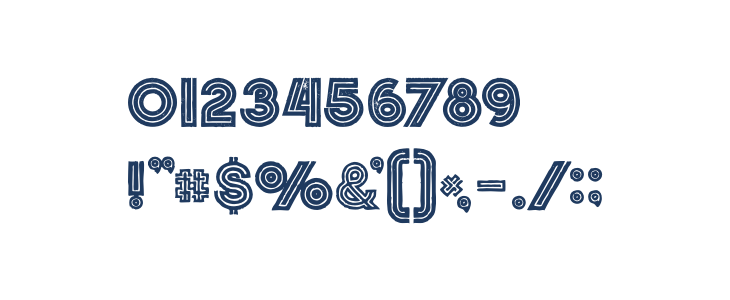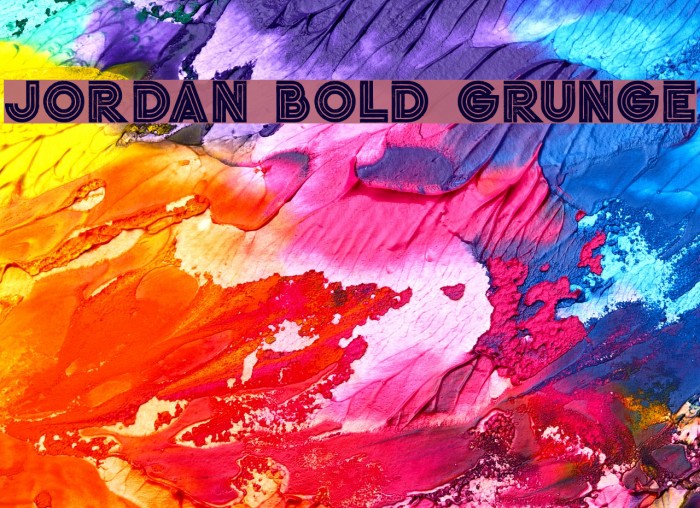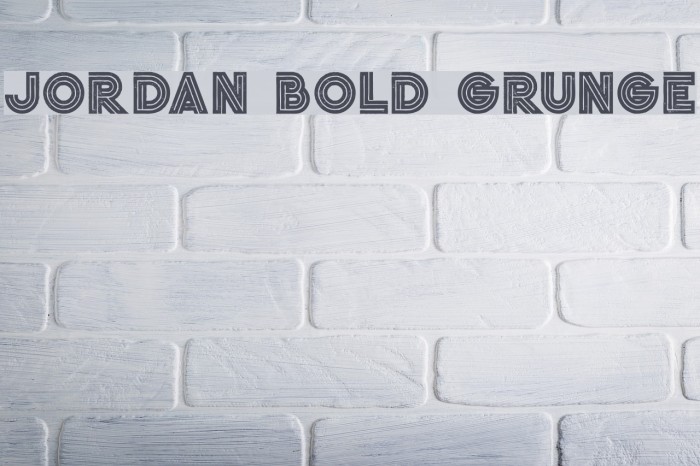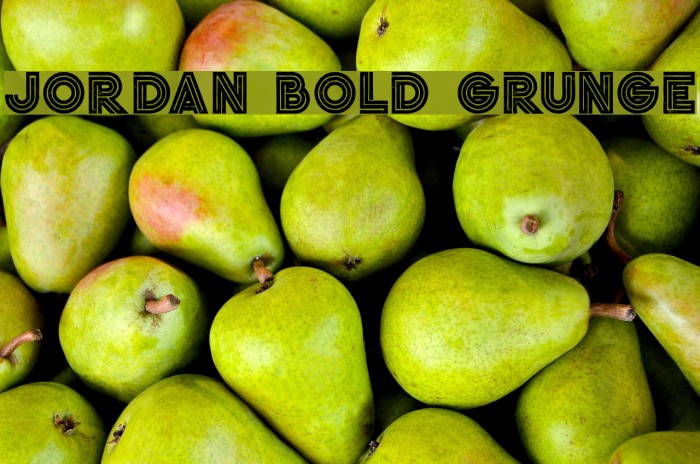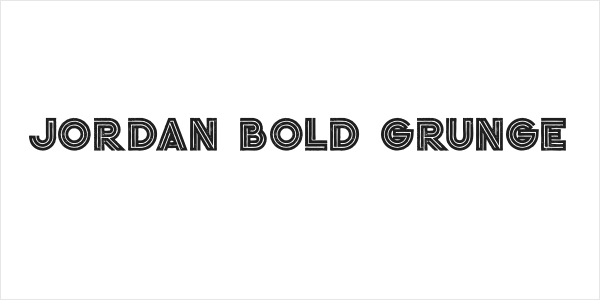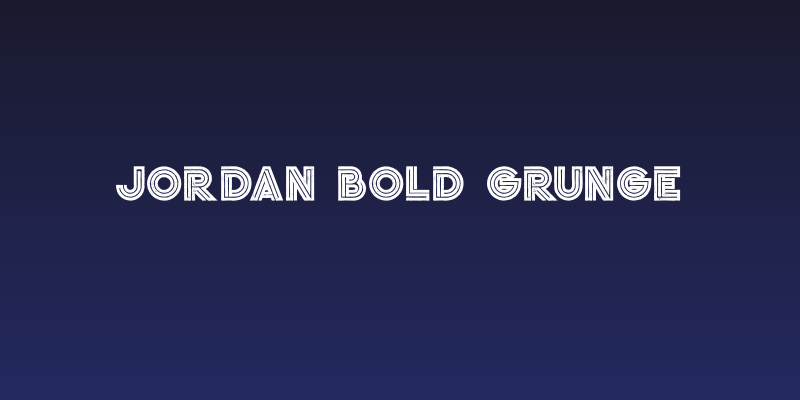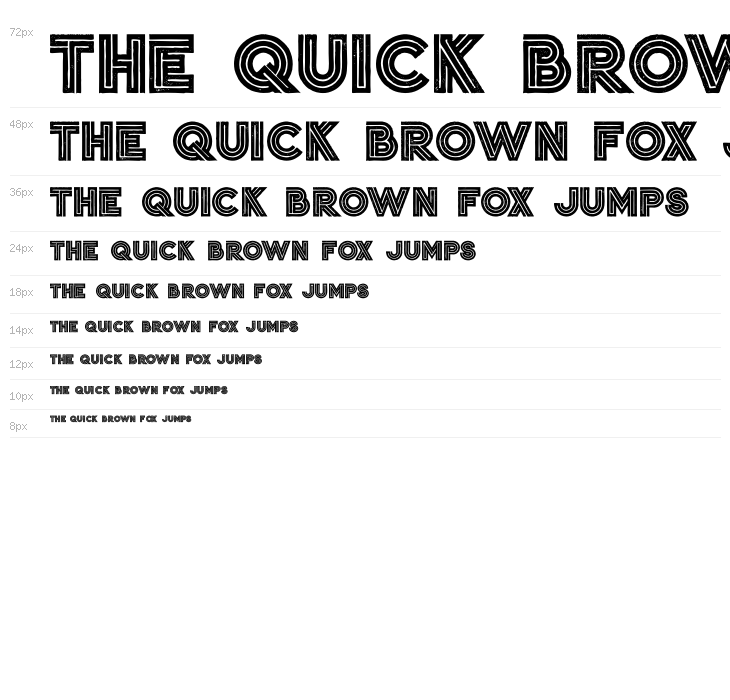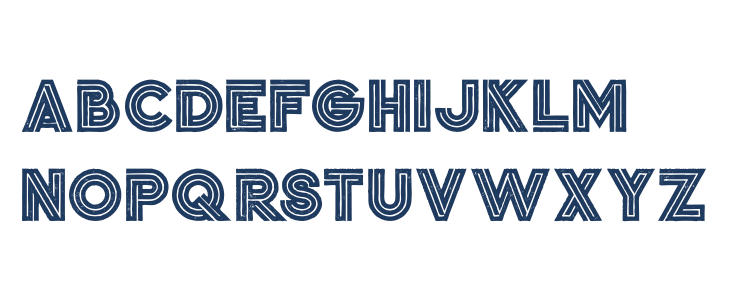
Jordan Bold Grunge Font
Jordan Bold Grunge Description
This font features a bold and rugged design with a grunge texture that gives it a distressed and worn appearance. The uppercase letters are strong and impactful, making them ideal for attention-grabbing headlines. The lowercase letters maintain the same boldness, ensuring consistency across different text cases. Numbers and special characters are designed with the same grunge effect, adding to the overall cohesive look. The font's unique style is perfect for projects that require a vintage or edgy aesthetic, such as posters, album covers, or branding materials. Its bold weight and textured appearance make it stand out in any design.
| Proposed Projects | Ideal for posters, album covers, branding materials, and any project needing a bold, vintage look. |